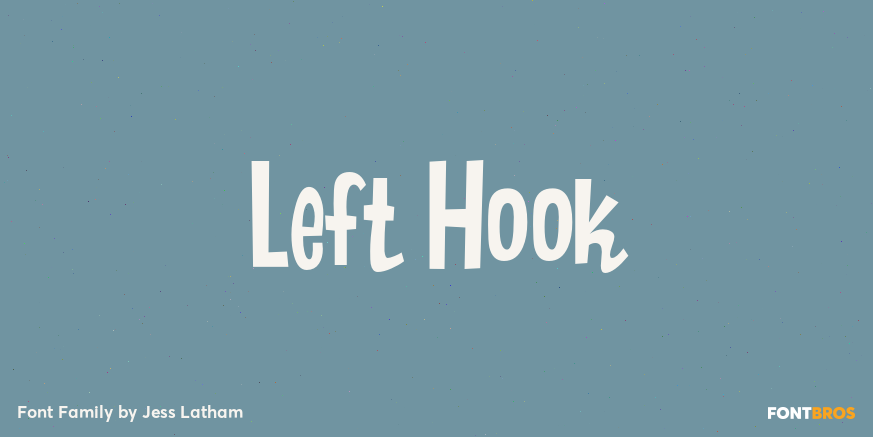
HomeFont BrosLeft Hook Font Bros Left Hook FacebookXPinterestWhatsApp 1 of 1 About Left Hook A fabulous font for that hand made retro look. Left Hook is big, bold and lots of fun!  DOWNLOAD NOW People also explored Rennoya Christine Font Forever Font Sang Dewi Font Gillimore Font Melisa Font Gorizon Font Homecake Font Hello Font 269 0 TagsLeft Hook Font Previous articleAinslie SansNext articleCatsy LEAVE A REPLY Cancel reply Comment: Please enter your comment! Name:* Please enter your name here Email:* You have entered an incorrect email address! Please enter your email address here Website: Save my name, email, and website in this browser for the next time I comment. Personal Use Free Hatia Script Personal Use Free Read more about this font Mandara Personal Use Free Read more about this font Ciggs Personal Use Free Read more about this font Girl Personal Use Free Read more about this font BLOG Modern Sans-Serif Fonts That Brands Love in 2025 In 2025, modern sans-serif fonts remain a top choice for brands looking to project clarity, professionalism, and... Exploring Font Trends Free vs Paid Fonts: Why Investing in Premium Fonts Is Worth It Free Fonts Risk: Why Free Fonts Can Be Dangerous for Designers